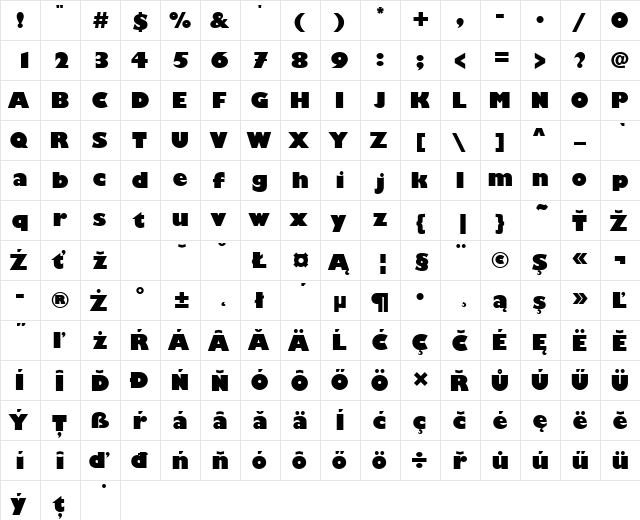
GillKayDEE Regular
Design Context for GillKayDEE Typeface
GillKayDEE is a composed and adaptable typeface that performs quietly and consistently across a wide range of design contexts.